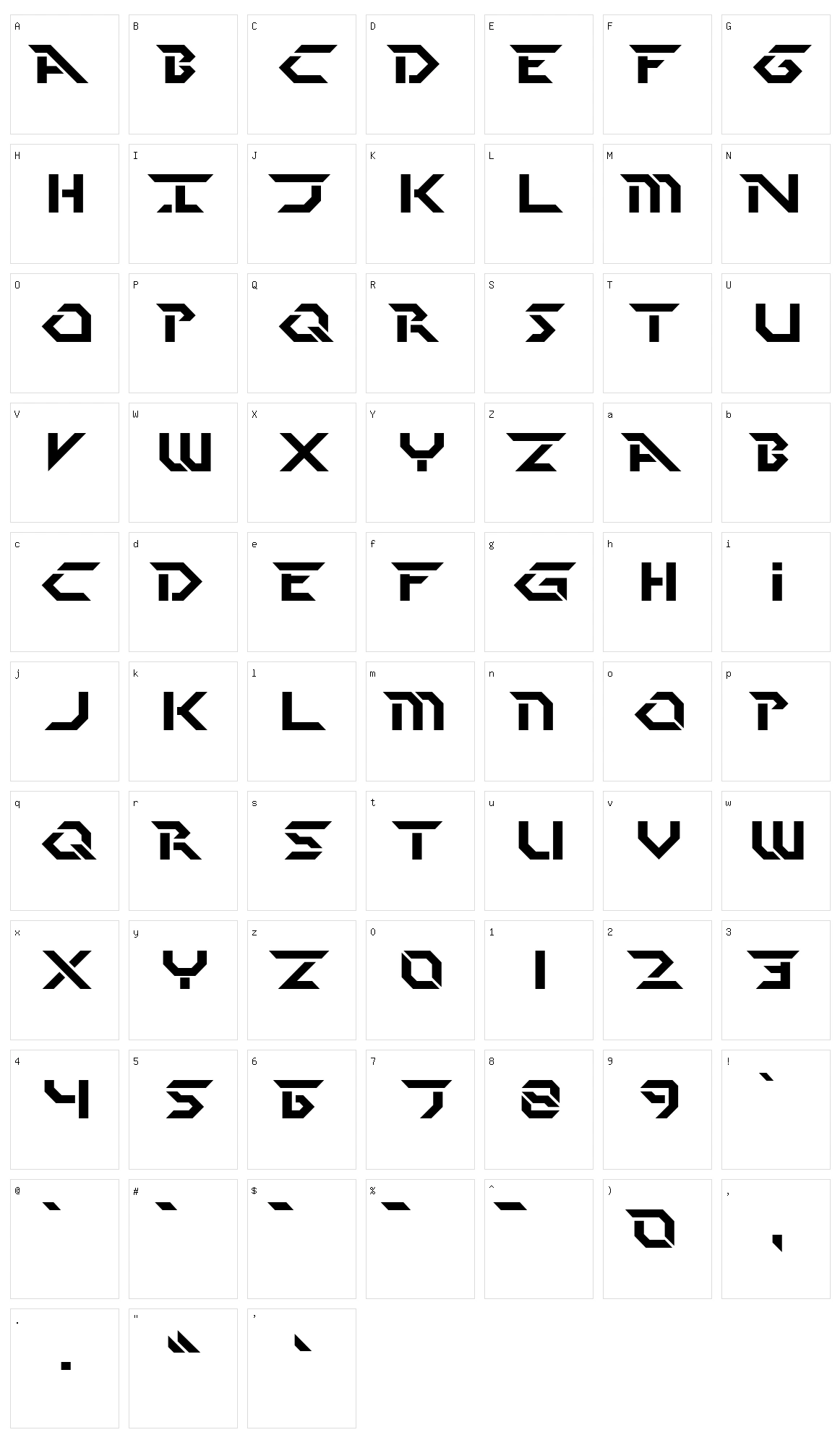
Perfect Dark
Designed by: Ænigma
Perfect Dark Created by Brian Kent
This Font is based on the Logo from the game Perfect Dark.
This Font uses Character Extenders [ !@#$%^ ] to give some of the
characters in the Font a longer TOP (when you have the letters A, a, D
and/or d in your text). For example, if you type out Perfect Dark",
type it out like this, Perfect D@a%rk" to give the a and r in Dark
extenders. Each Extender is a different size:
! =x1 length
@ =x2 length
# =x3 length
$ =x4 length
% =x5 length
^ =x6 length
The following characters do not use extenders: CcGgjOoQqSsXx0589"',.
The whole Font is made with Capital letters but some of the
Characters have more than 1 letter Character. They are:
Ee [the e has a slightly higher middle prong like in the PD LOGO]
Ff [the f has a slightly higher lower prong like in the PD LOGO]
Gg
Hh
Ii
Jj
Nn
Oo [you can also use 0 and ) for the O's or 0's]
Ss [you can also use 5 for an S and vice versa]
Uu
Vv
Xx
to make the Font look more like the Games Logo (slanted), use Italic
on the Font.